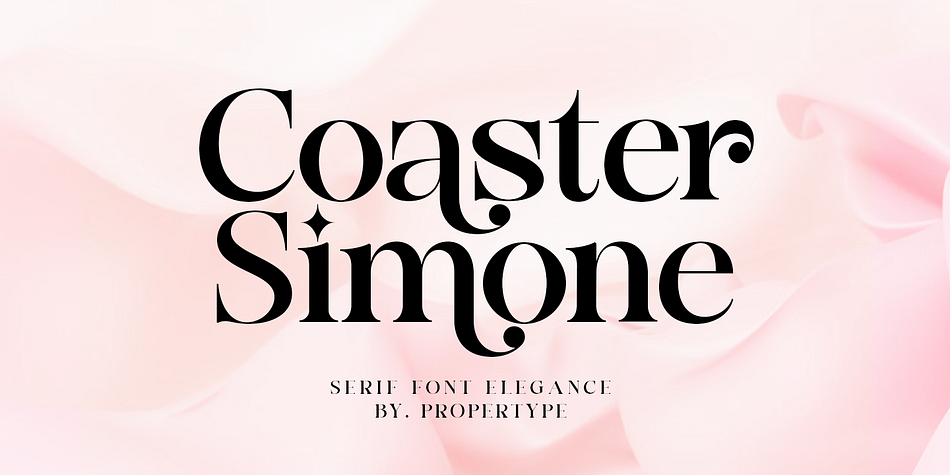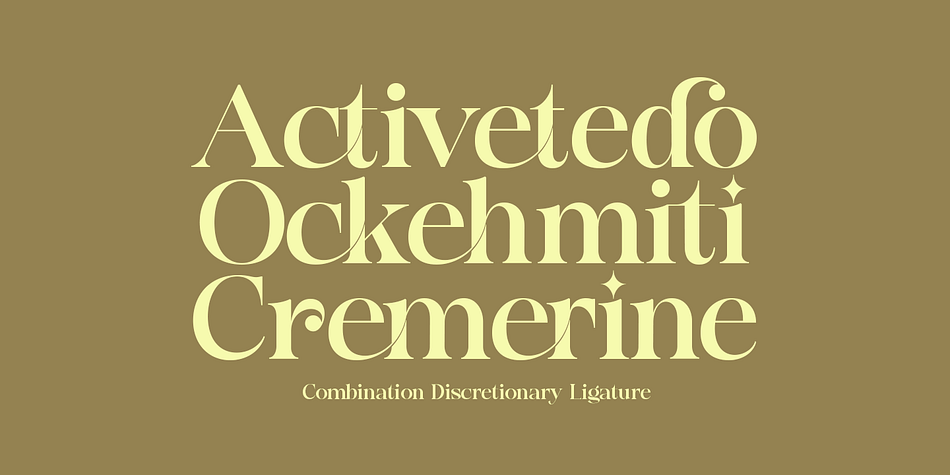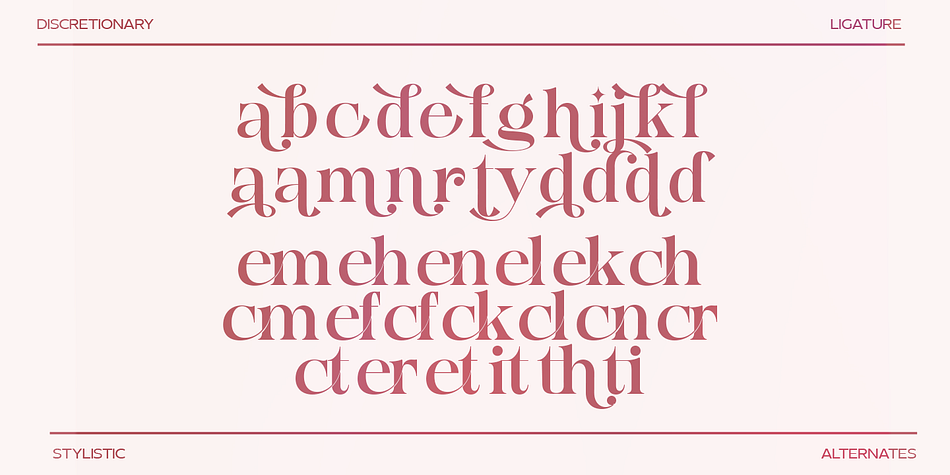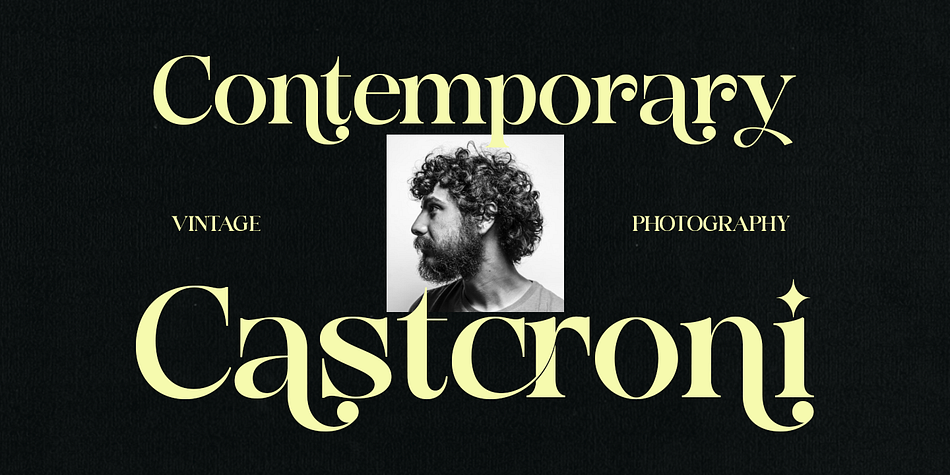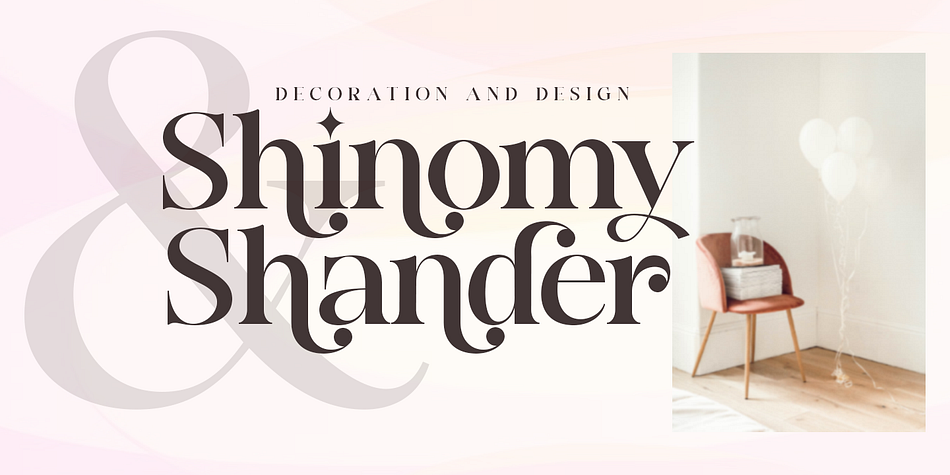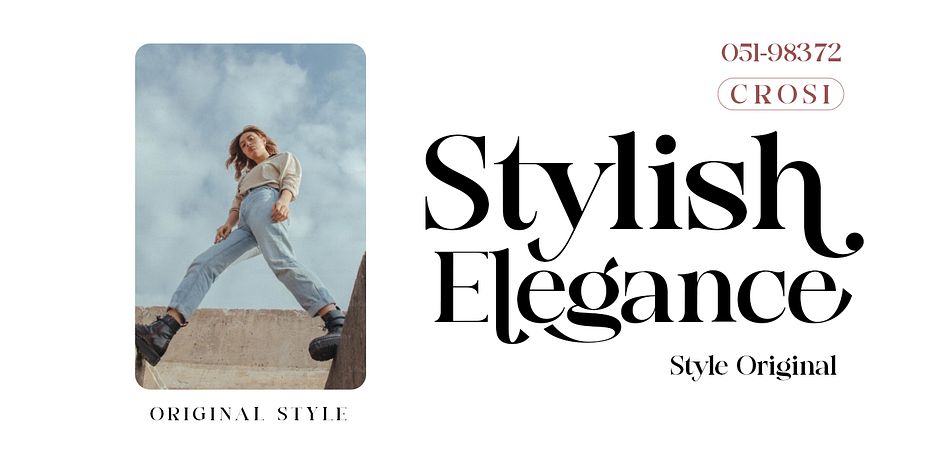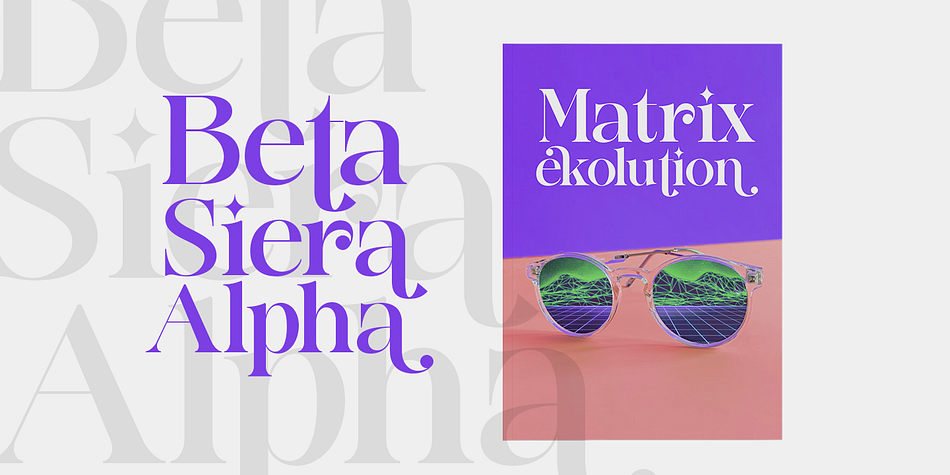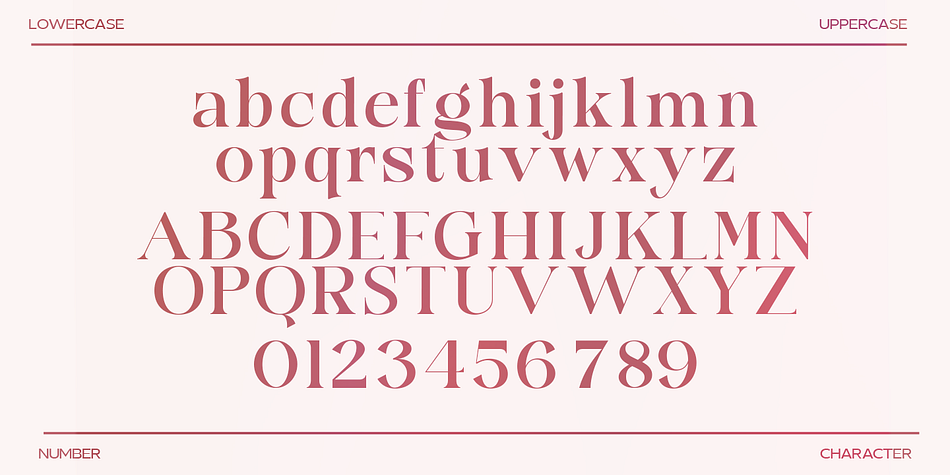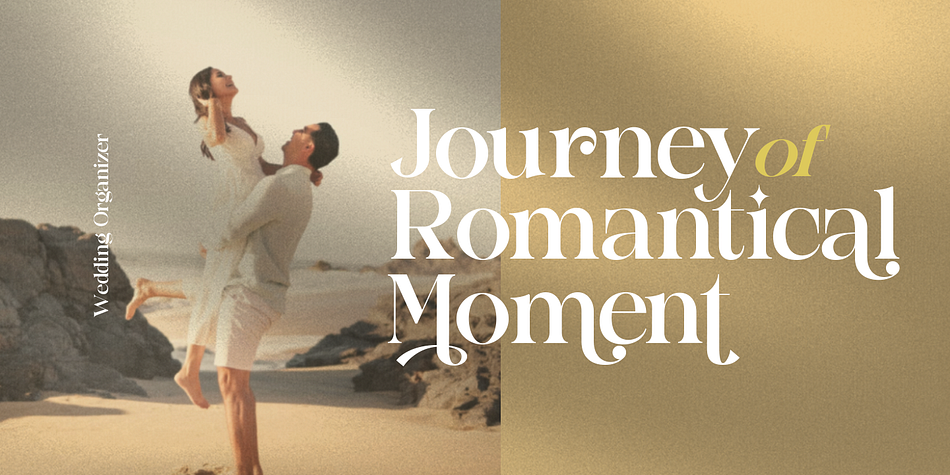
Coaster Simone
Coaster Simone is a display font family published by Gatype.
Coaster Simone Confident Serif is an elegant, modern and contrasting serif font. It includes a very engaging freestyle. This is a versatile font perfect for any project, contrasting, modern and easy to read. With it, you can create logos, use them in advertising, packaging, book and magazine covers, titles, descriptions and much more.
Uppercase Characters
Lowercase Characters
Numbers and Ligatures
Coaster Simone features multilingual Support for multiple languages.